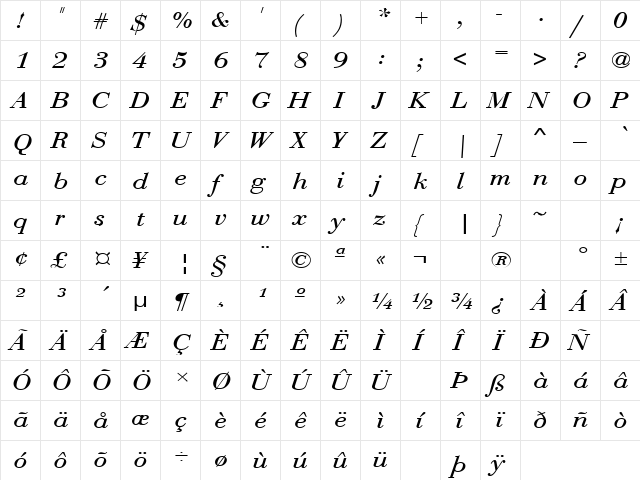
Us And Them 1 Regular
Design Context for Us And Them 1 Typeface
Us And Them 1 takes a measured approach to typography — its balanced proportions and neutral character make it a reliable workhorse for both digital and print work.